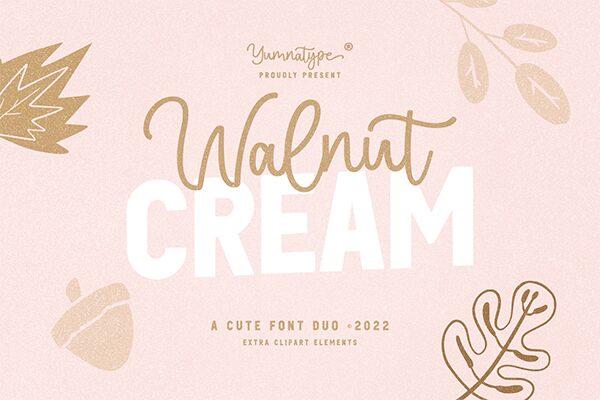
Walnut Cream, designed by the Yumna Family, is a captivating sans-serif font that exudes a sense of warmth and approachability. With its condensed width, this typeface offers a modern and streamlined aesthetic, effortlessly balancing legibility and visual appeal. The smooth, rounded letterforms and subtle ink traps create a harmonious and inviting impression, making Walnut Cream an excellent choice for projects that require a touch of sophistication and refinement.
This versatile font lends itself beautifully to a variety of applications, from editorial layouts and branding initiatives to web design and packaging. Its condensed nature allows for efficient text composition, making it an ideal selection for headlines, subheadings, and short-form content, where space optimization is crucial. Walnut Cream's versatility extends further, as its clean and legible attributes make it a suitable choice for longer-form text, ensuring a seamless reading experience across diverse mediums.